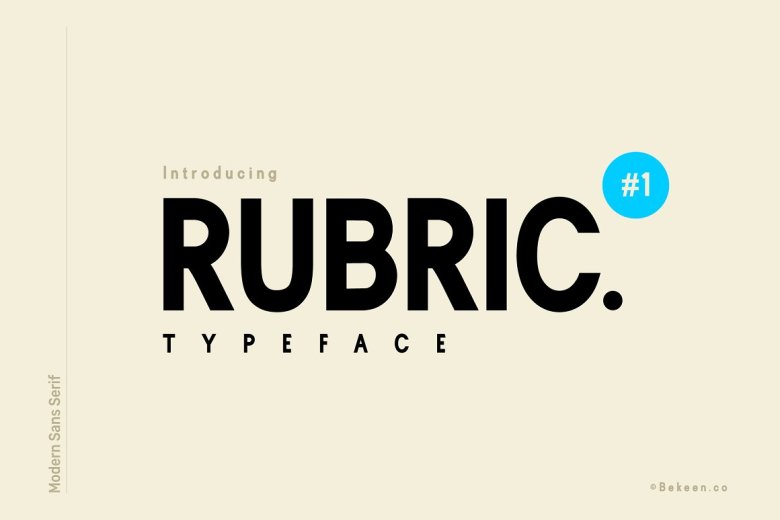
Rubric Font
Rubric is a bold san serif typeface created by Bekeen.co with relaxed, clean, and charming characteristics. Inspired by headlines in magazines. With the balancing of hard lines and smooth curves give a strong and minimalist look to branding, magazine, packaging, advertisements, websites, and more.